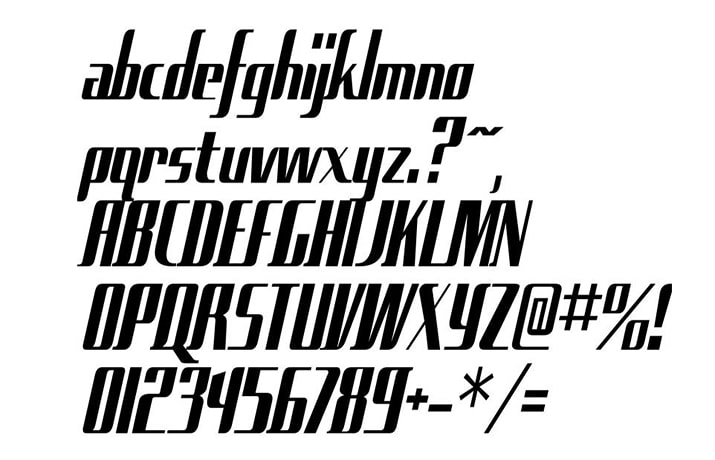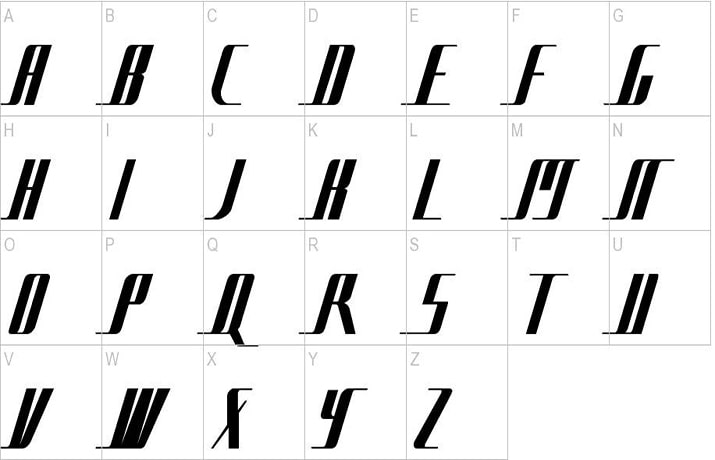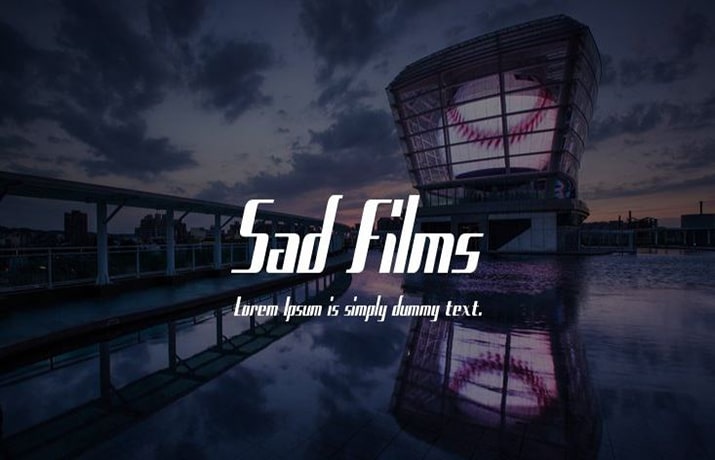
Sad Films Font is a techno various typeface that takes inspiration from unique typography designs. It features a futuristic look but also uses classic typography elements.
It was developed by Typodermic Fonts Inc. that is a font company located in Nagoya, Japan. Typodermic Fonts was founded in 2001 by Raymond Larabie in Canada.
It is made its texture bold and slim with sharp edges just to make it attractive font for display tasks. So, this can clearly give fine designs.
So, we can say that this is one of the best techno fonts with a great texture. All his letters are drawn with unique strokes that maintain a classic look throughout.
This unique techno font is suitable for multiple purposes. For example, font pairing, special event cards, printing for fabric purposes, composing books, game graphics, game titles, technical documents, bold headlines, as well as printing on shirts and pants.
This fine quality typeface comes in a single regular weight and it also contains 199 defined characters and 164 unique glyphs.